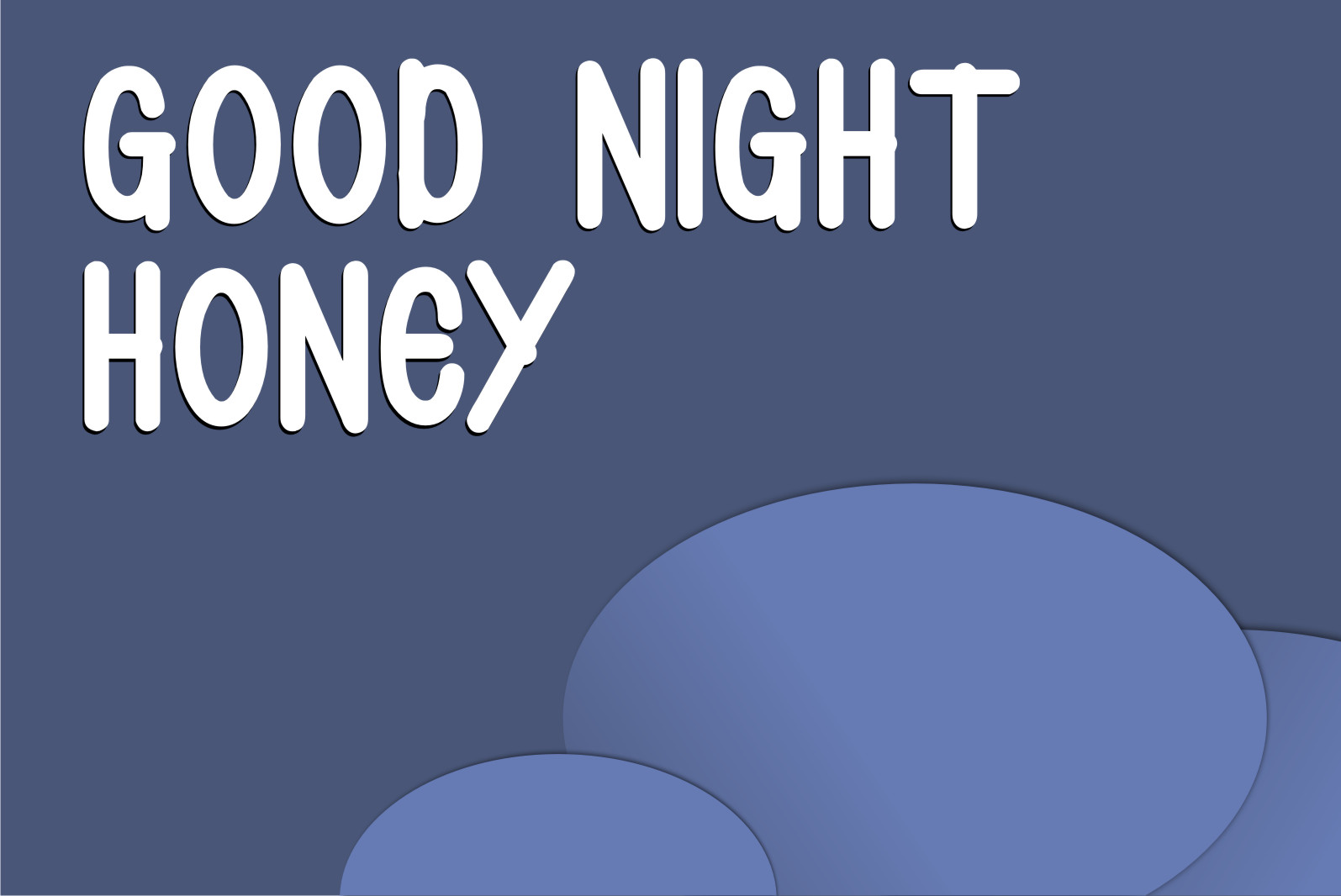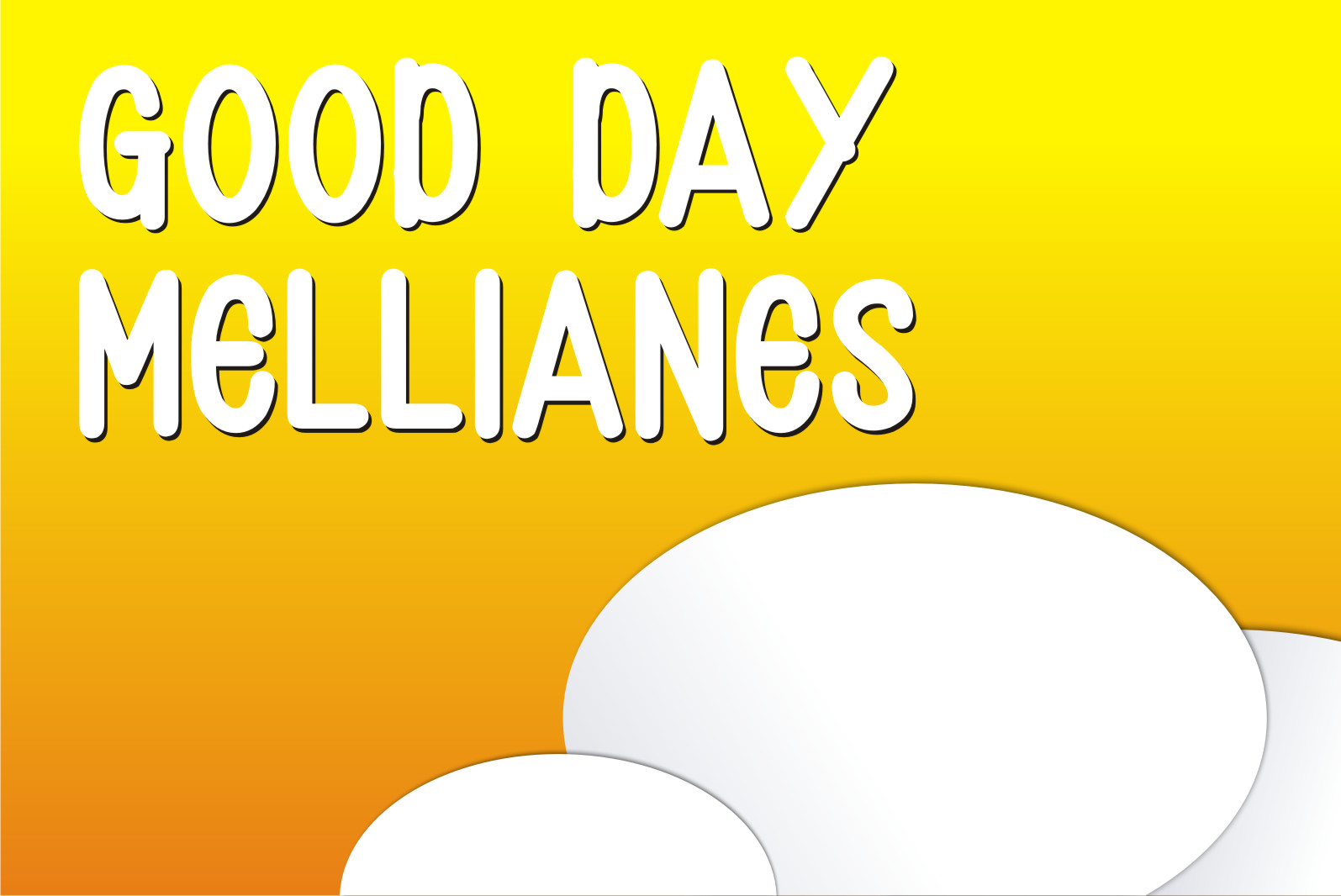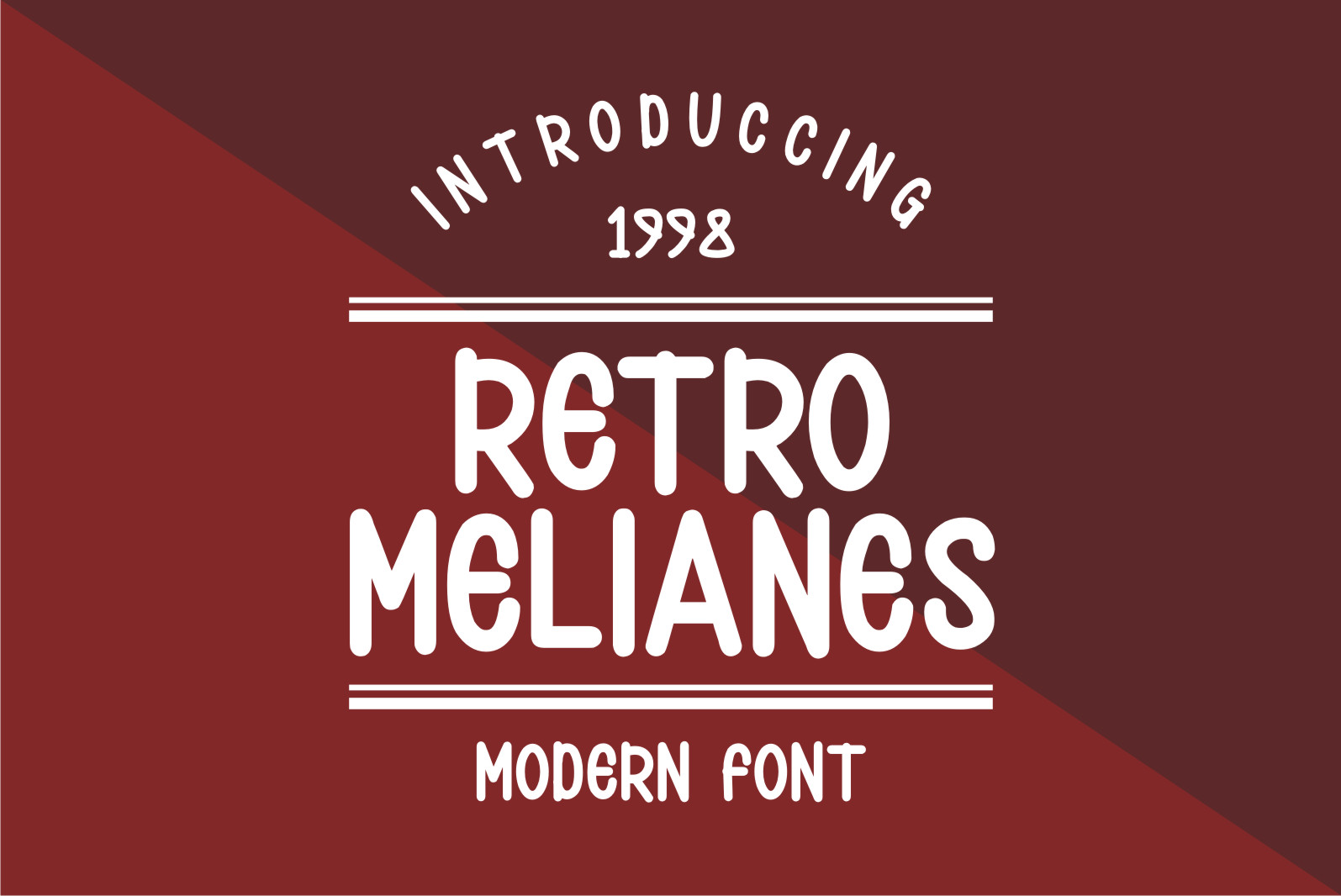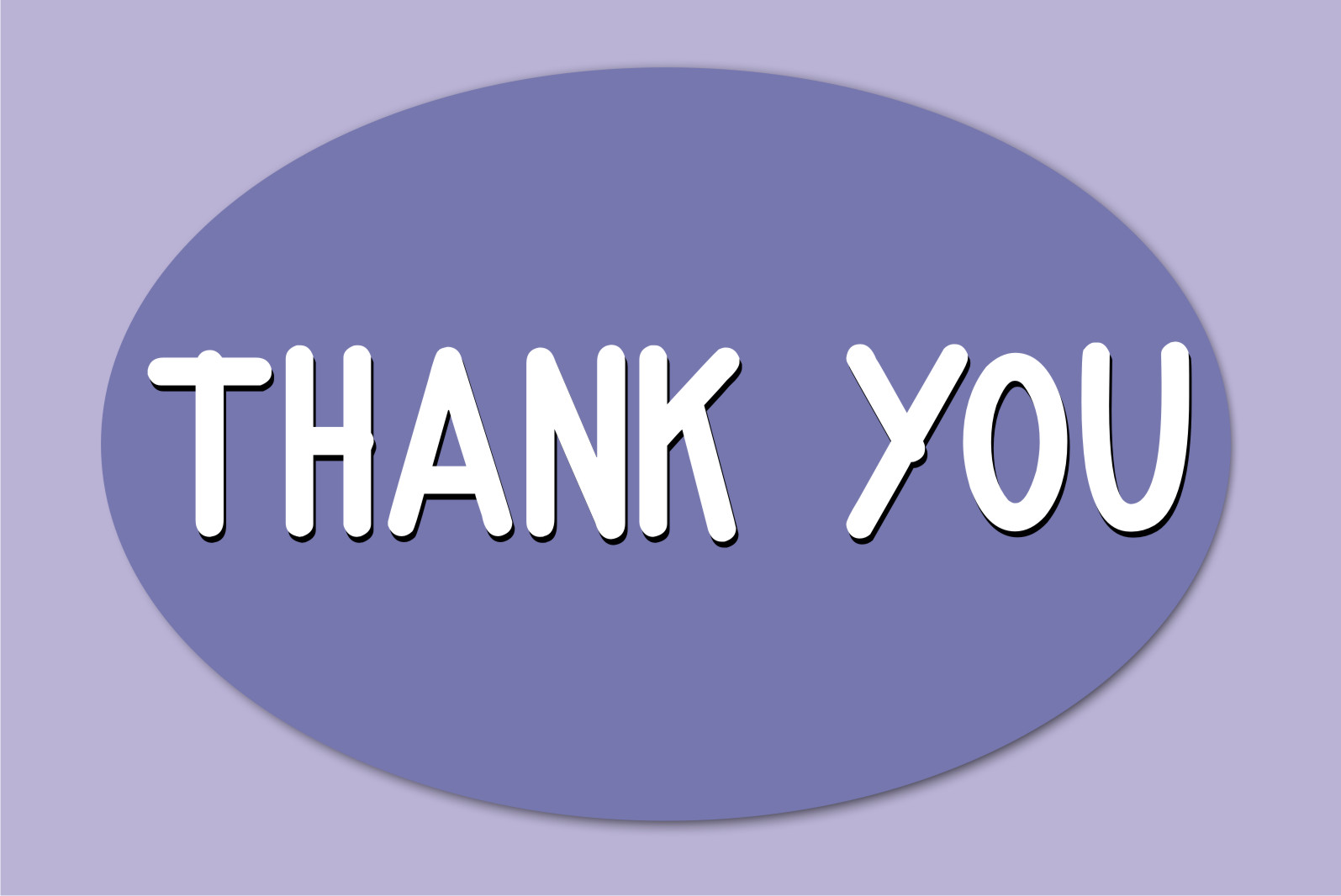
Melianes Display Font
It’s a cool and trendy-looking display font. You can add this typeface on posters, children’s books, education-related projects, comics, book titles, and many more.